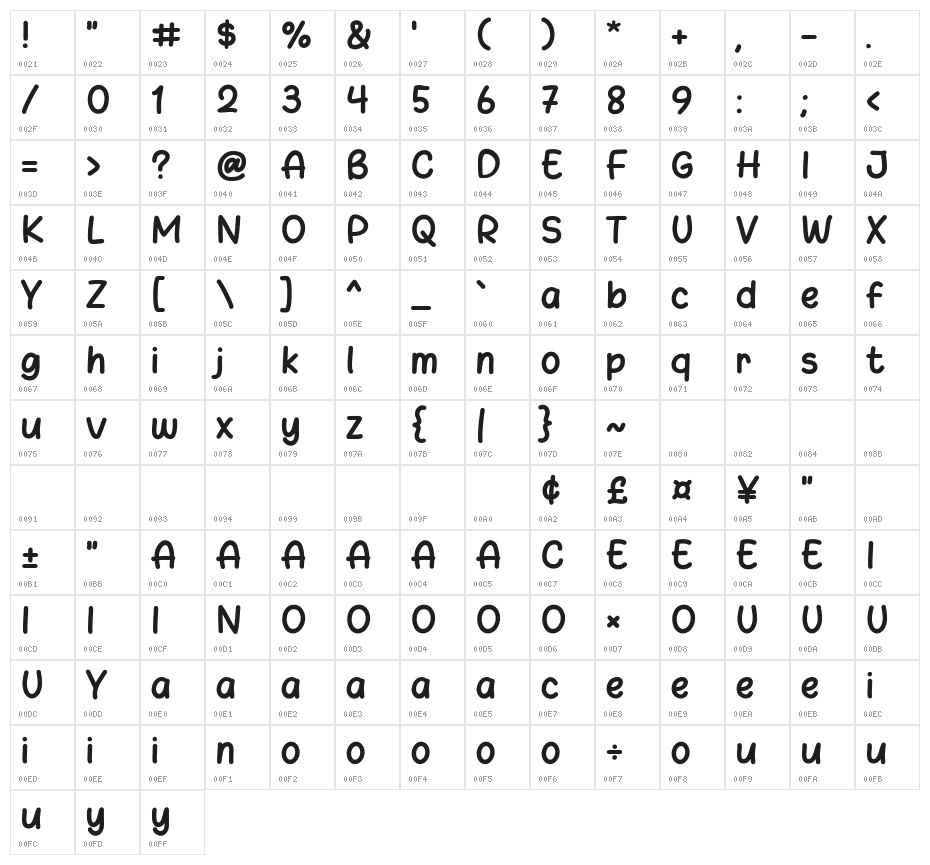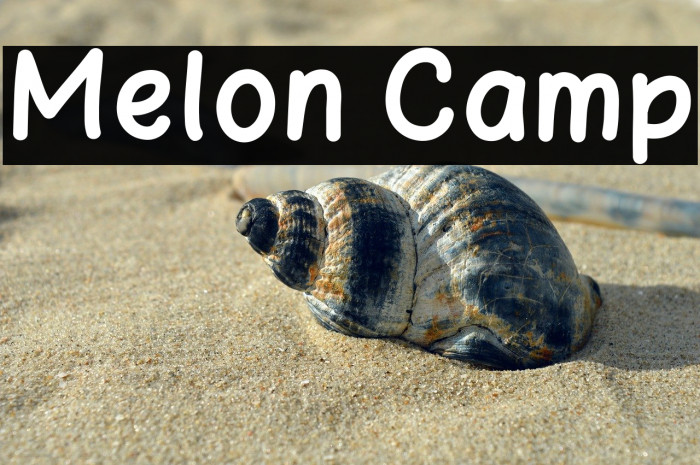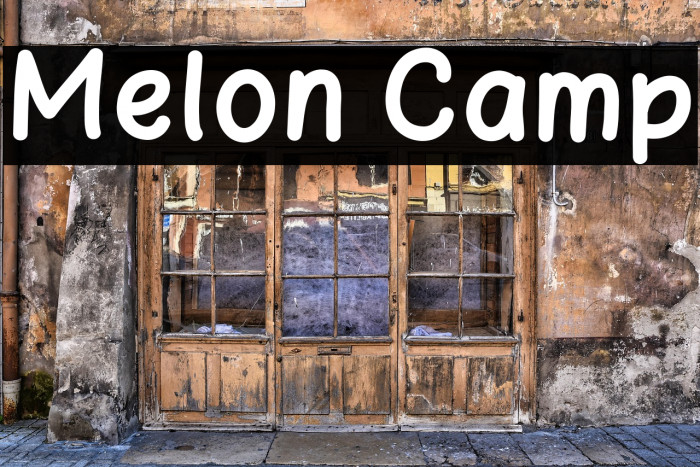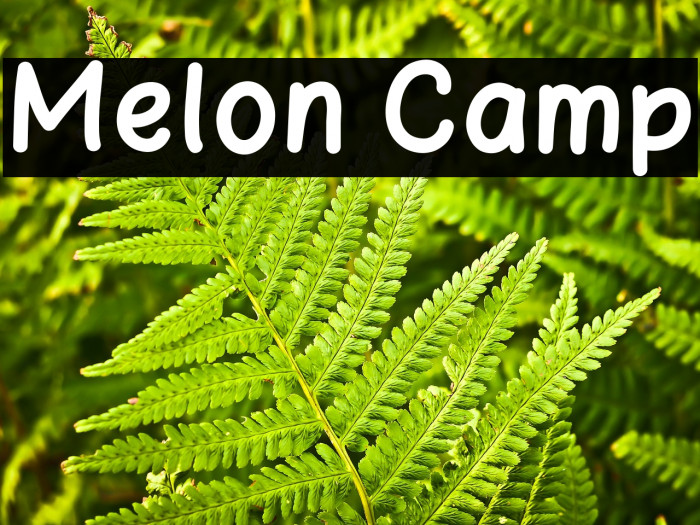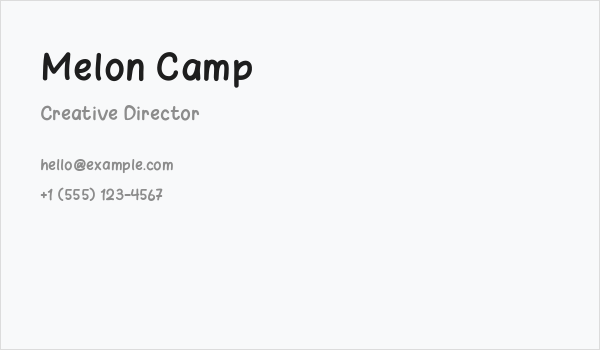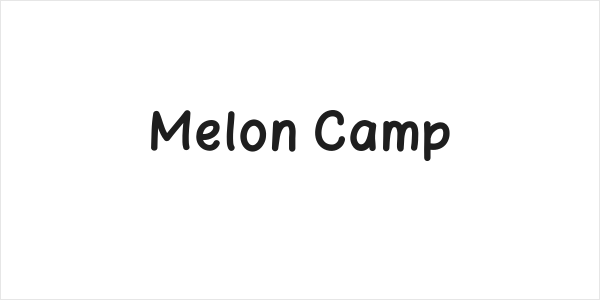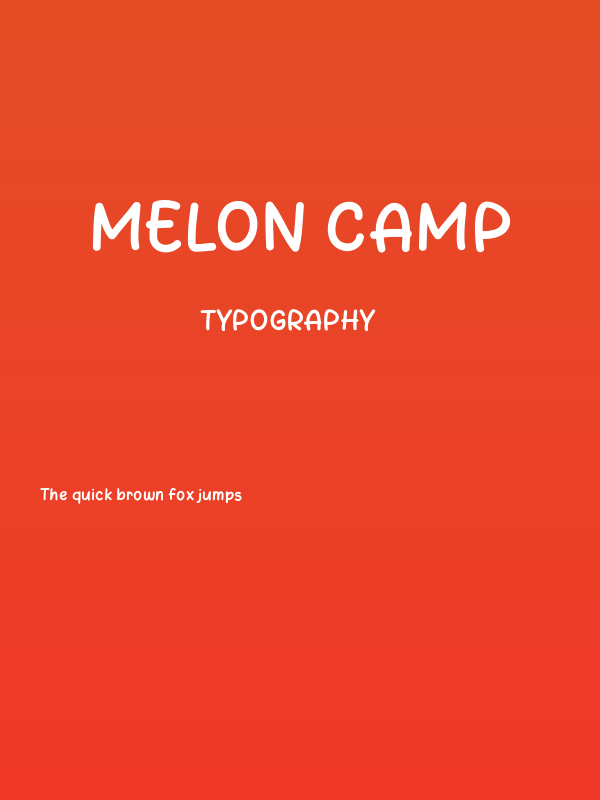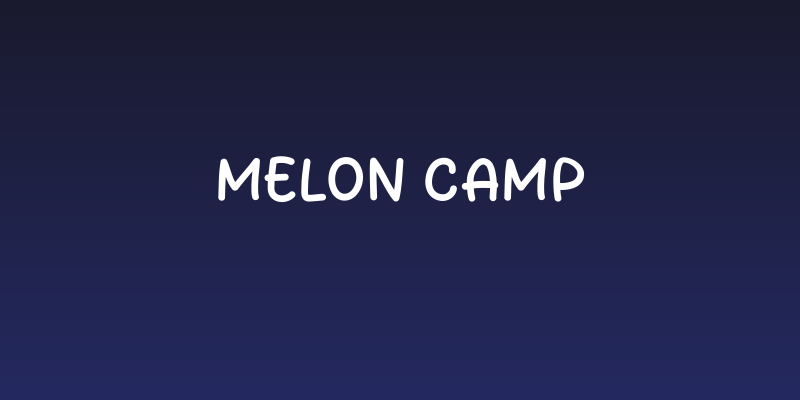
Melon Camp Font
Melon Camp Description
This playful and rounded font exudes a friendly and approachable vibe, characterized by its smooth curves and consistent stroke width. The letters are slightly bouncy, adding a whimsical touch to the overall appearance. The font maintains a uniform thickness throughout, ensuring readability while conveying a sense of fun and informality. Its design is reminiscent of handwriting, making it suitable for projects that require a personal and casual feel. The characters are well-spaced, enhancing legibility and providing a clean look.
| Use Case | Headlines, Informal text, Branding |
| Proposed Projects | Ideal for children's books, greeting cards, playful branding, and casual invitations. |